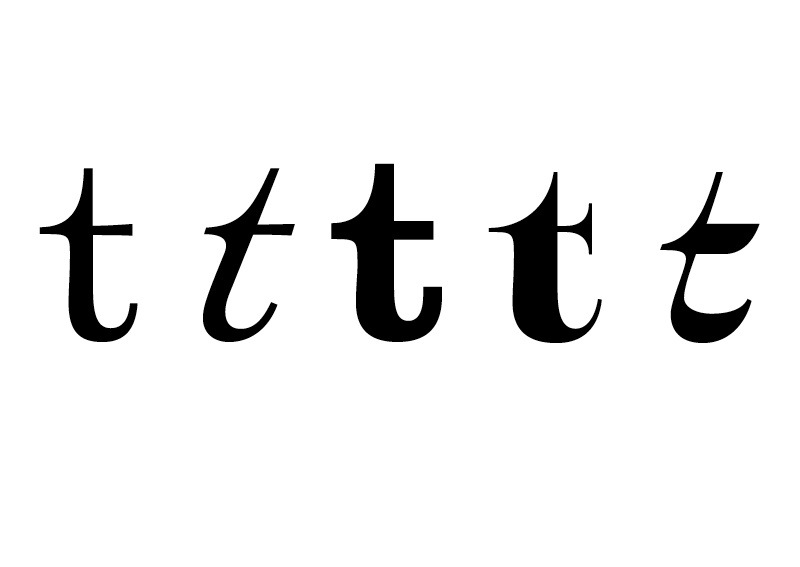
Everything but boring—Quentin Schmerber did not design Temeraire to make it invisible. It is conspicuous, and this is what it is supposed to be. Its obvious inconsistency in the cuts always brings surprises in all areas of its use. Temeraire shines with a colorful bouquet of 18th-century letterforms that bring a smile to the face of every typography lover.
Quentin Schmerber’s Temeraire serif font family was not designed to be invisible. It is a typographic exploration meant to be seen—with its beauty, one could even say beheld. While some fonts aim to be as easily ignored as possible, Temeraire is offered as a gift to wide-eyed readers with its anything-but-boring character and its conspicuous inconsistency in styles.
Most type families increase the weight of each character to expand the family. Instead, research into 18th century sources produced Temeraire’s wide range of letterforms, from the predictable to the odd and loosely related through time. Each style is designed to work alongside the others but are also standalone homages to specific parts of English lettering tradition: gravestone cutting, writing masters’ copperplates, Italiennes, and others.
Temeraire’s Regular style is a contrast-loving Transitional Serif with vertical stress, making it great for period and classic works, ironic pieces, and modern throwbacks. The weight of the Bold squares off the ends of each glyph to give it stability, and the italic style rings true: flowing, contrasting, and purposefully inconsistent.
Temeraire’s Display Black style is one salvaged from expressive gravestone artistry. The details most easily noticed are the ‘g’ with its descending bowl that has been pressed back up in the centre, and the additional serif on the ‘t’ crossbar that holds its neighbouring character at bay. (The ‘g’ and ‘Q’ have loopless alternates.) The final style is the Italienne, the horizontally stressed counterpoint to the family. By design its characters flow and bend in ways not in step with the rest of the family. All the weight has been pushed to either hemisphere within each glyph, resulting in a display style that demands space and peacefulness around it so its presence can impress.
Like all TypeTogether families, Temeraire’s five styles meet the current designer’s needs, including alternates for when the defaults are too boisterous. It works on screens for the audacious designer but truly shines in print. The Temeraire serif font family is resurrected from echoes in time and finds its family relation through impeccable taste.
Temeraire
Foundry: TypeTogether
Designer: Quentin Schmerber
Release: 2018
Weights: Regular, Italic, Bold, Display Black, Italienne Italic